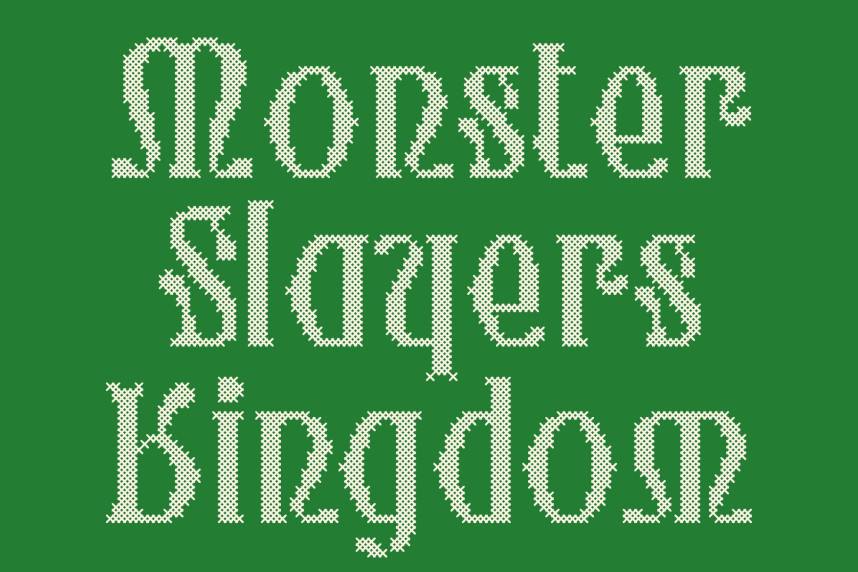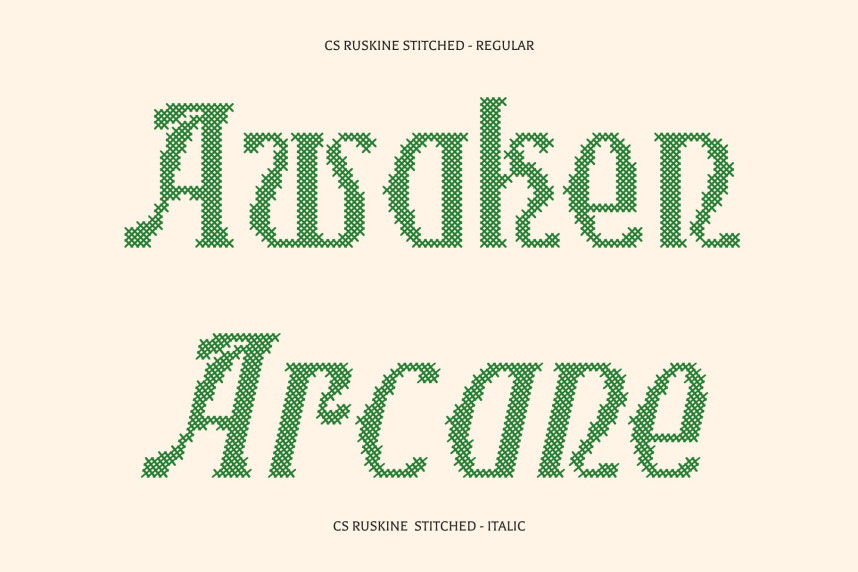
CS Ruskine Stitched Font
CS Ruskine Stitched Font – Display Serif Font: Where Uncial Heritage Meets Modern Craft
Classic Uncial Influence with Contemporary Balance
This is a modern display serif font that harmoniously blends classic uncial forms and medieval elegance with contemporary minimalism. Its letterforms reflect historical calligraphic grace while maintaining a clean and refined structure suited for modern design. This thoughtful fusion creates a balanced typeface that feels timeless, elegant, and visually composed.